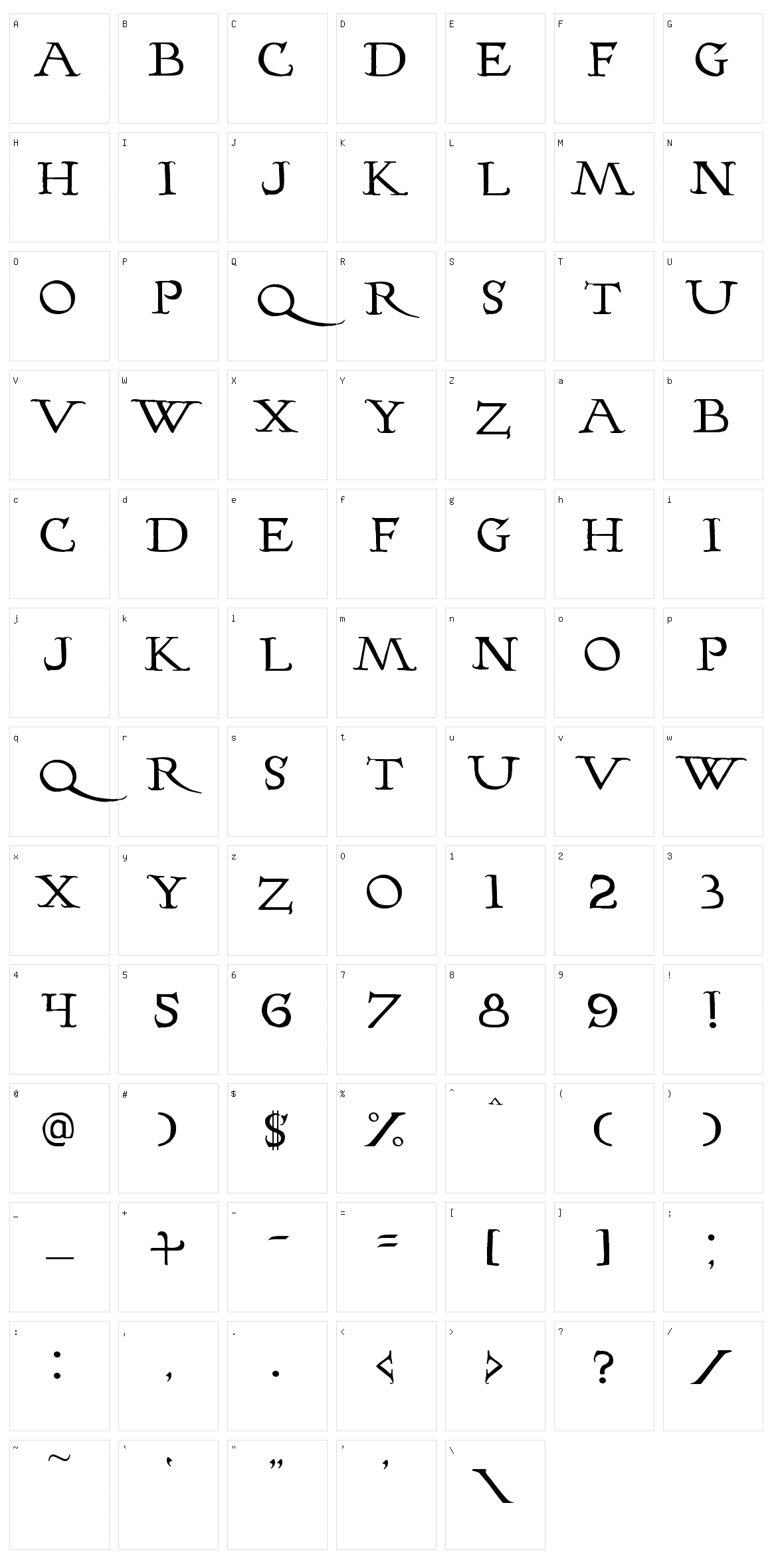
Hopfer Hornbook
Designed by: Staffan Vilcans
Category: Various & Gothic
Hopfer Hornbook font
Made by Staffan Vilcans.
Design by German artist Daniel Hopfer (circa 1470-1536).
Converted to a TrueType font by Staffan Vilcans.